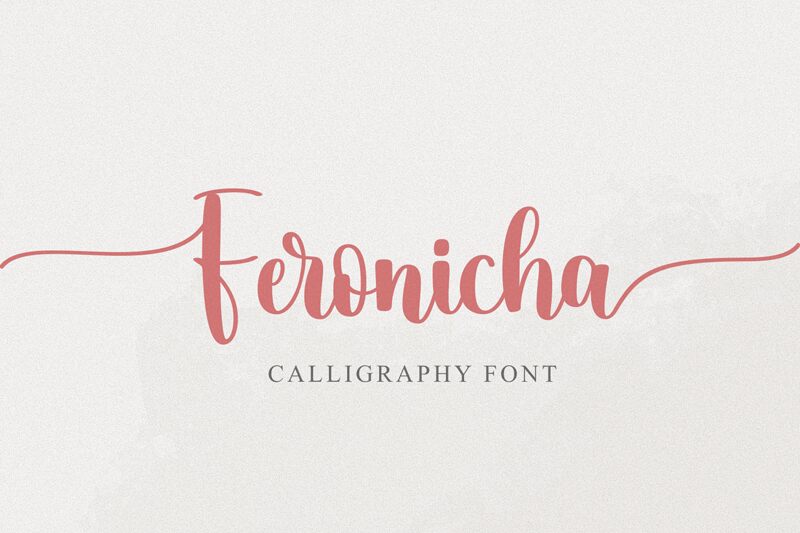
Feronicha, designed by Makashi, exudes a unique charm that only a semi-light handwritten font can. Its fluid and elegant strokes suggest sophistication while maintaining an approachable warmth. The delicate balance of its lines captures the essence of personal touch, making it a perfect choice for projects that require a bespoke feel.
The aesthetic appeal of Feronicha lies in its ability to convey casual elegance. Whether it's for branding, wedding invitations, or editorial designs, this font has the versatility to elevate any creative endeavor with its stylish appearance. Its handwritten quality adds authenticity and character, setting your designs apart in a world dominated by digital perfection.